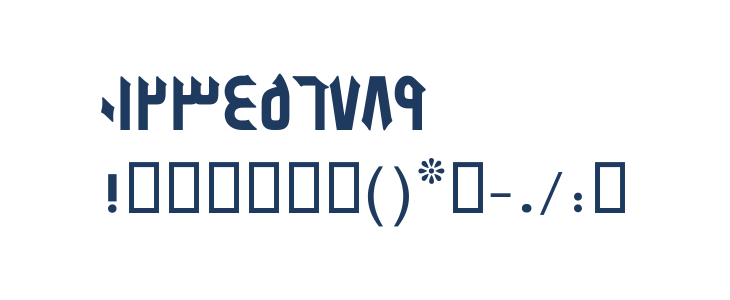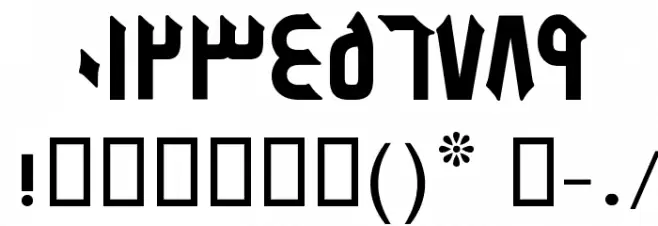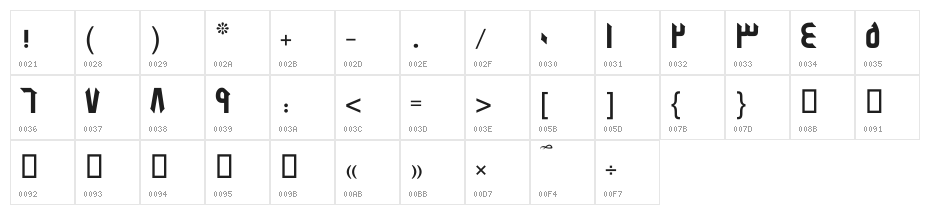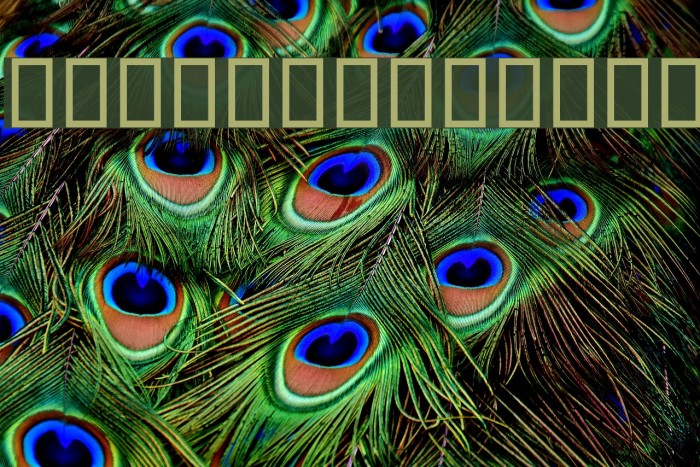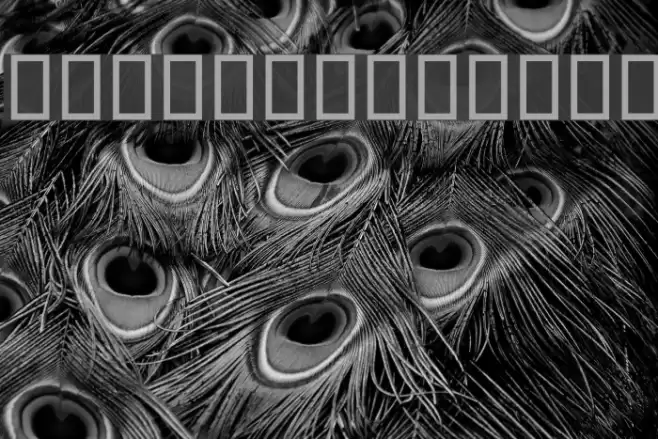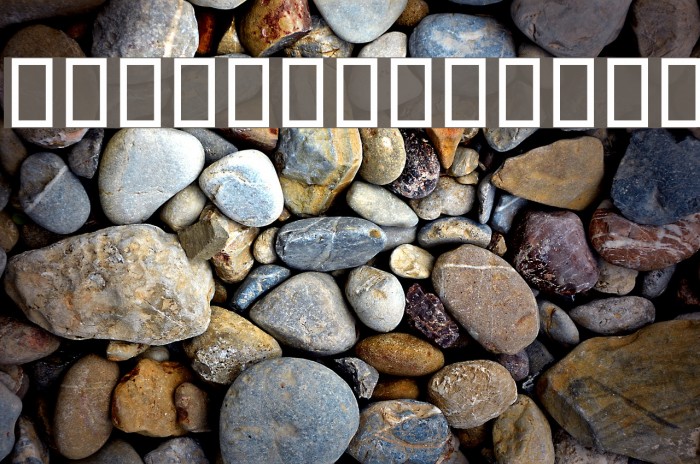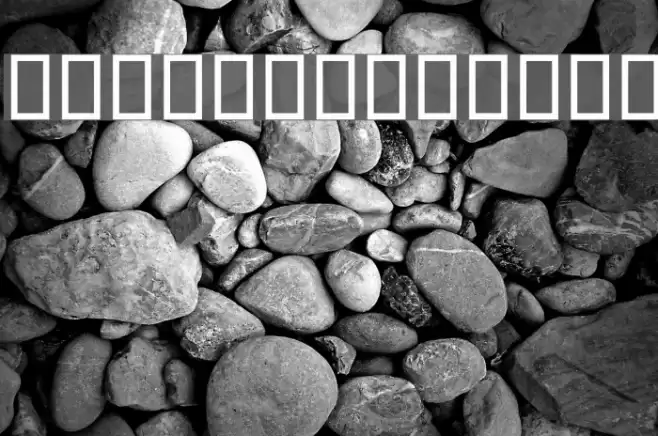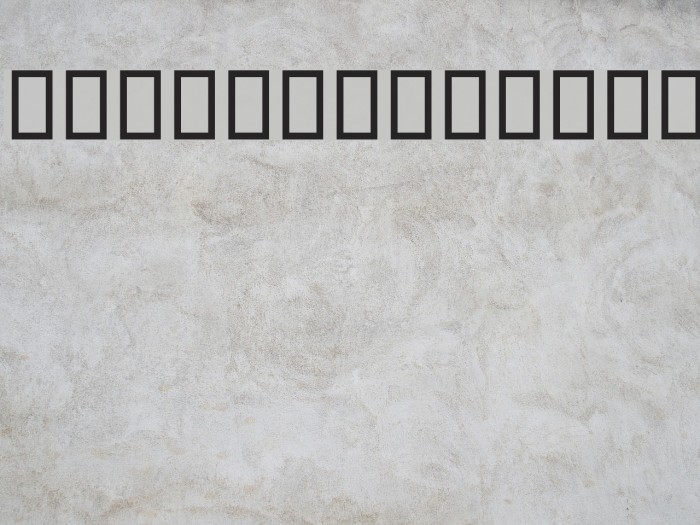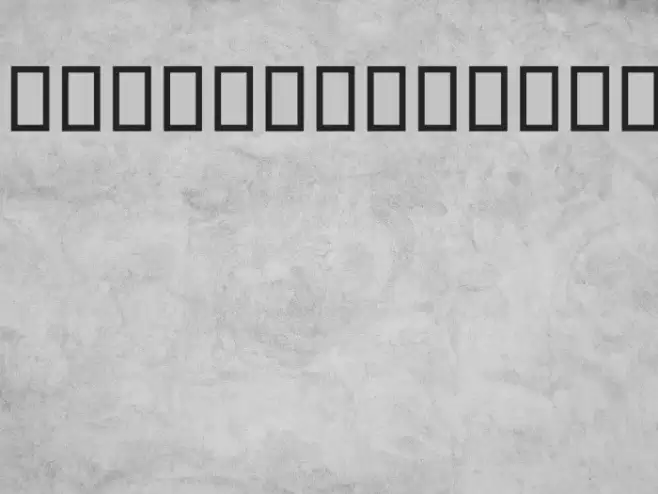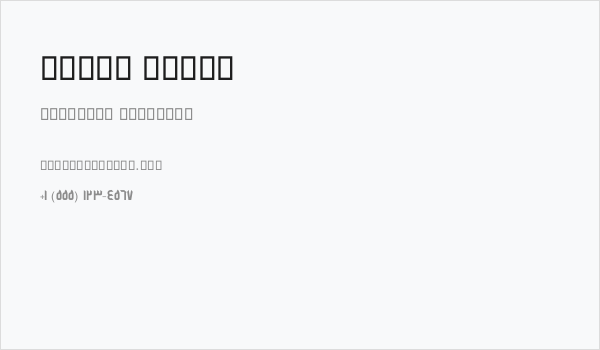
Islam Decor Font
Islam Decor Description
This font features a bold and striking design with a strong emphasis on geometric shapes and sharp angles. The characters are crafted with a high level of precision, showcasing a modern and decorative style. The boldness of the font makes it highly legible and impactful, suitable for creating attention-grabbing headlines and titles. The unique design elements give it a distinctive appearance, making it ideal for projects that require a touch of creativity and modernity. The font's style is consistent across all characters, maintaining a uniform look that enhances its visual appeal.
| Proposed Projects | Ideal for headlines, posters, branding, and any project requiring a modern and bold aesthetic. |